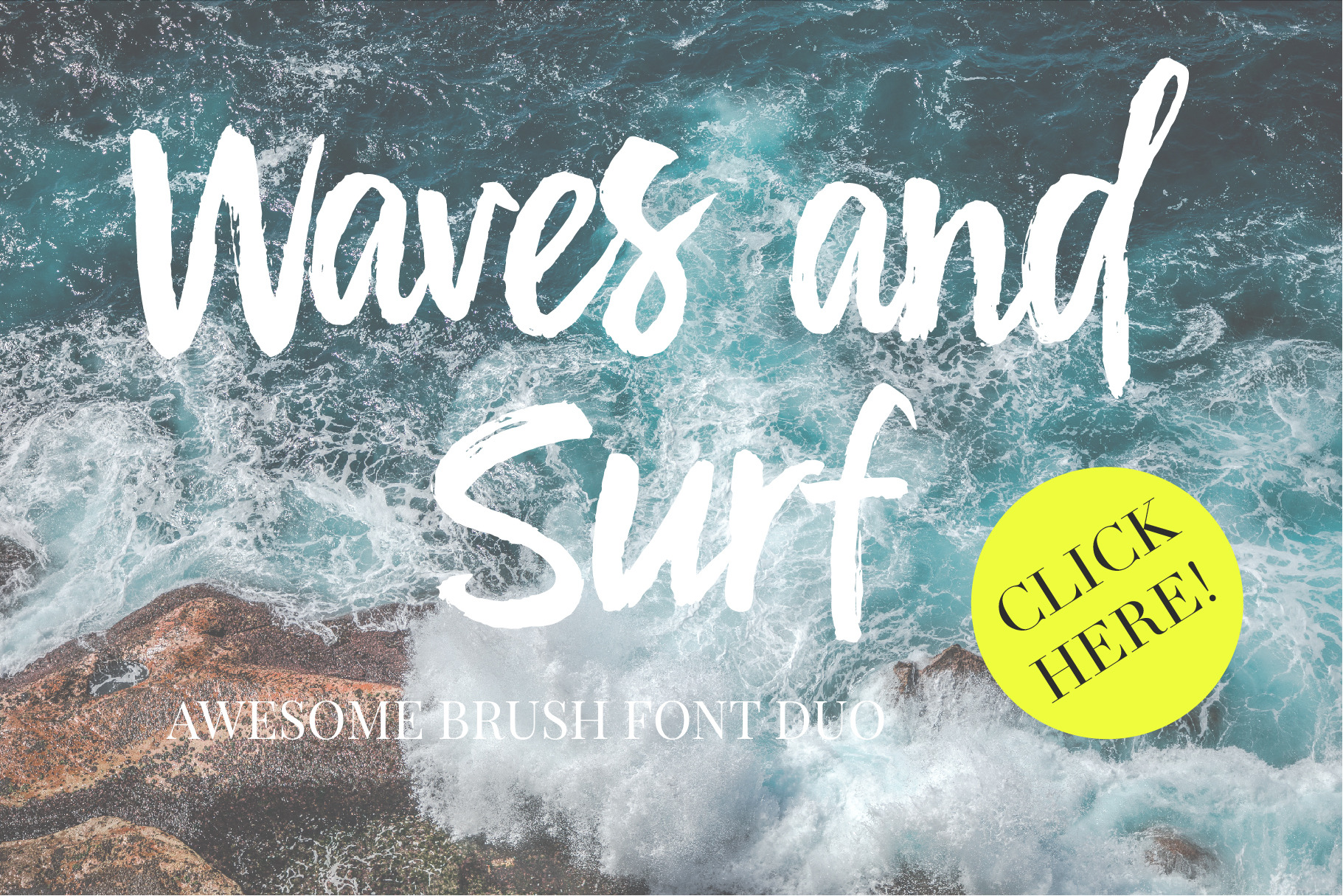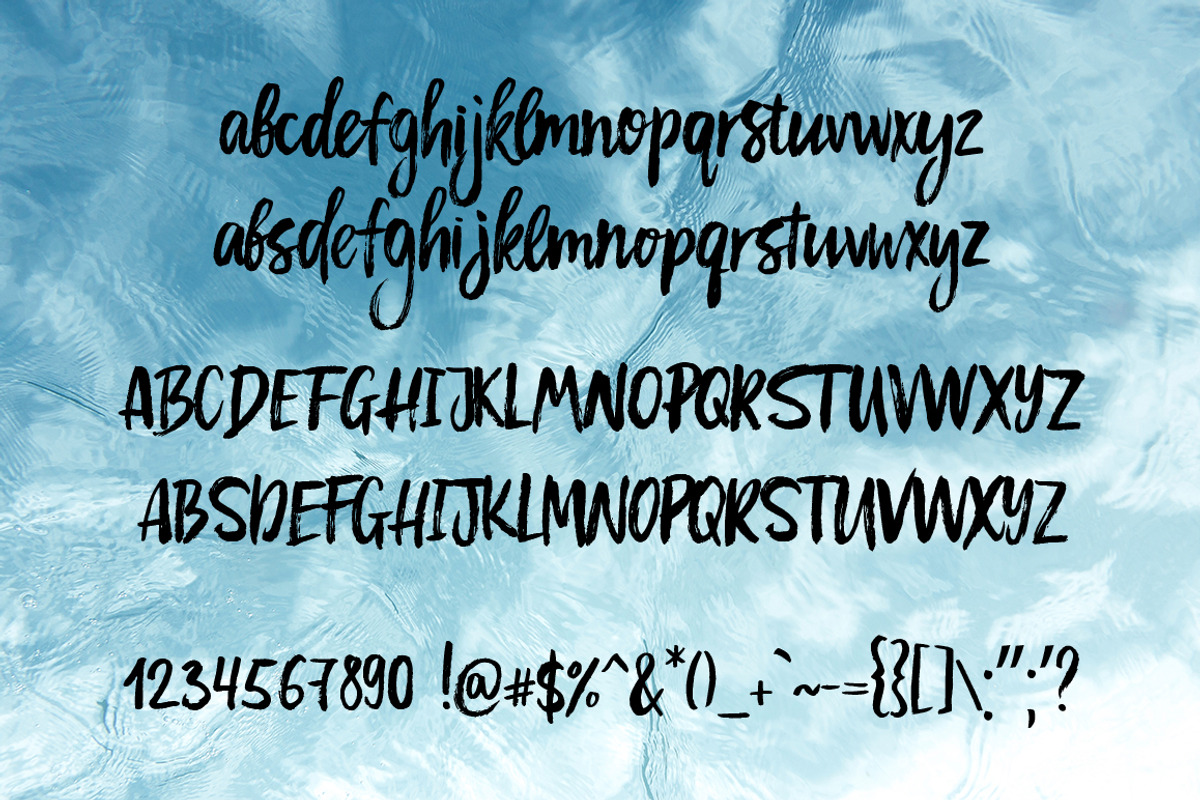
Waves & Surf - Awesome Font
New! Introducing a new awesome font Waves and Surf
Say Hello to our new gorgeous font Waves and Surf. Add a hand brushed touch to your magazine layouts, lettering, logo designs, quotes, packaging, social media. You can mix and match both fonts in one word without any special software.
Waves & Surf Lower otf. and ttf. A hand brushed font with two full sets of lowercase characters, numerals, punctuation and multilingual characters.
Waves & Surf Upper otf. and ttf. Second version of the font with the new set of uppercase characters and new set of multilingual characters.